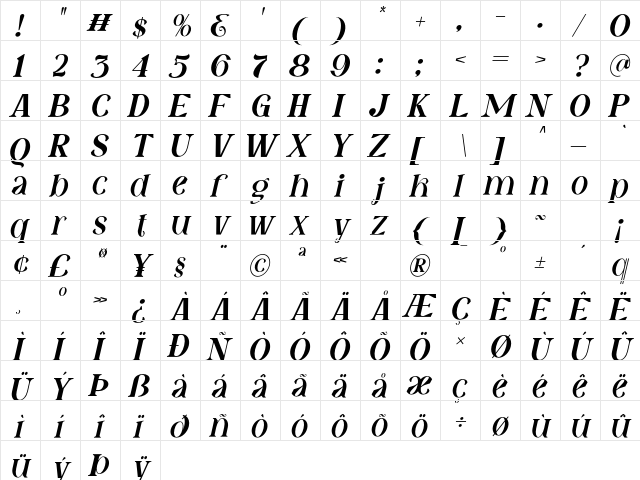
Fatin Gengky Italic
| Designer | Candi Erwanto |
Design Context for Fatin Gengky Typeface
Fatin Gengky offers clean, dependable letterforms without strong stylistic allegiance, making it a practical choice for designers who need flexibility. Its italic angle brings a sense of urgency and motion to the letterforms.